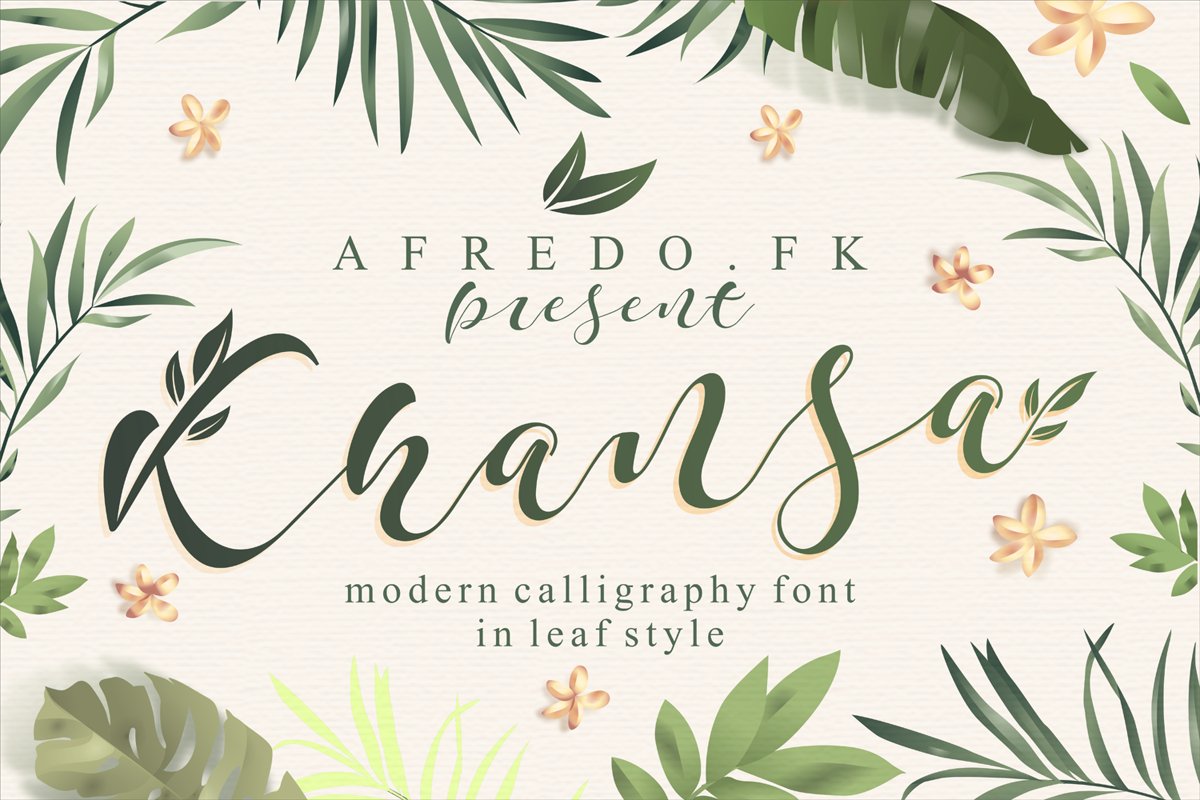
Khansa
Khansa a new fresh & modern script with a
handmade calligraphy style, decorative characters and a dancing
baseline! So beautiful on invitation like greeting cards, branding
materials, business cards, quotes, posters, logo and more!!
The alternative
characters were divided into several Open Type features such as Swash,
Stylistic Sets, Stylistic Alternates, Contextual Alternates. The Open
Khansa :
Uppercase & Lowercase International Languange & Symbols
Support Punctuation & Number PUA Unicode Range Standard Stylistic
Alternates Stylistic Set 1-14 Character Variant Contextual.